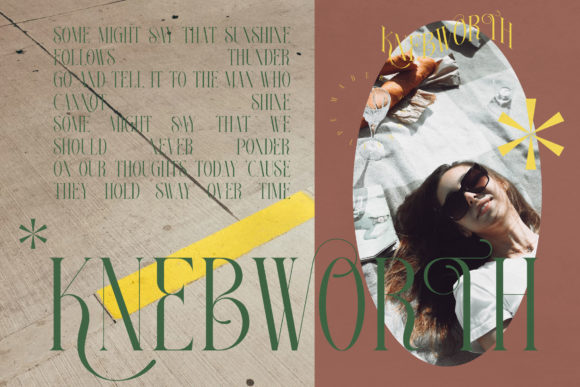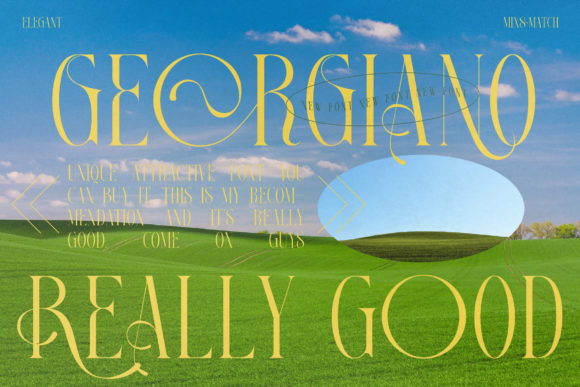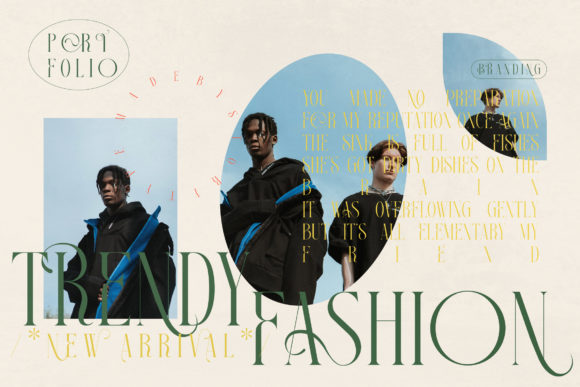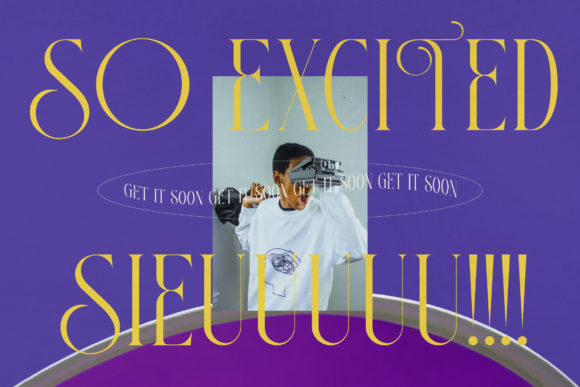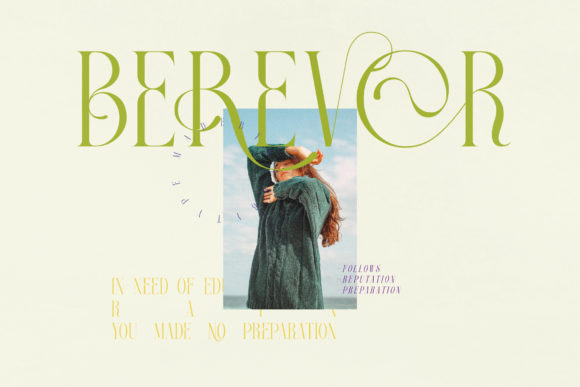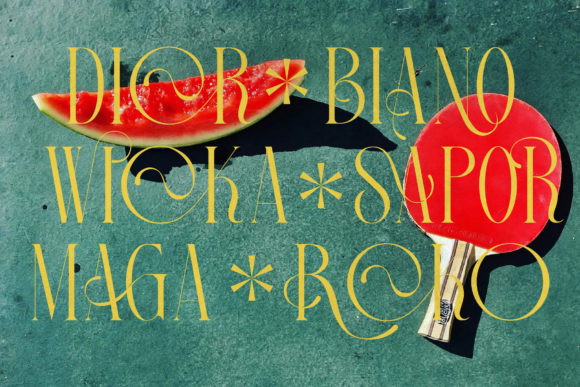
The Quest for the Perfect Font: Discovering Georgiano
I still remember the frustration of working on a project, hours spent searching for the ideal font that would bring my design to life. The client wanted something elegant, yet modern; stylish, yet understated. I scrolled through page after page of font options, but nothing seemed quite right. That was until I stumbled upon Georgiano, a stylish and delicate serif font that exceeded my expectations in every way.
A First Impression: What I Love About Georgiano
Georgiano is more than just a font; it’s a design statement. Here’s what I love about it:
- ✨ Clean and Contemporary Design: Each character is meticulously crafted with a clean and contemporary look that immediately elevates any design.
- 💫 Elegant Serif Details: The serif details add just the right amount of sophistication and elegance, making Georgiano perfect for projects that demand a refined look.
An Honest Review: The Not-Perfect-but-Almost There
No font is perfect, and Georgiano has a few quirks:
The Story Behind Georgiano: Designer Inspiration
Though the actual origins of Georgiano might not be well-documented, it’s easy to imagine it was crafted with a passion for minimalist design and a love for typography. The creator likely sought to merge traditional serif elements with a modern aesthetic, making it versatile for various design applications.
| Is Georgiano suitable for body text? | Yes, its clean design and elegant serifs make it readable and stylish for body text. |
Georgiano is more than just a font; it’s a versatile tool for any design project. Its elegant, modern look paired with extensive glyph and swash options makes it a valuable addition to your typography arsenal. Whether you’re crafting a brand identity, creating art, or simply indulging in a creative hobby, Georgiano can help elevate your work to new heights.